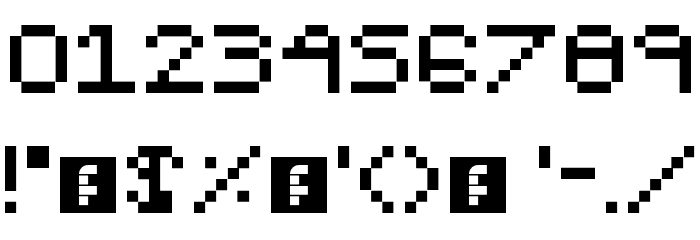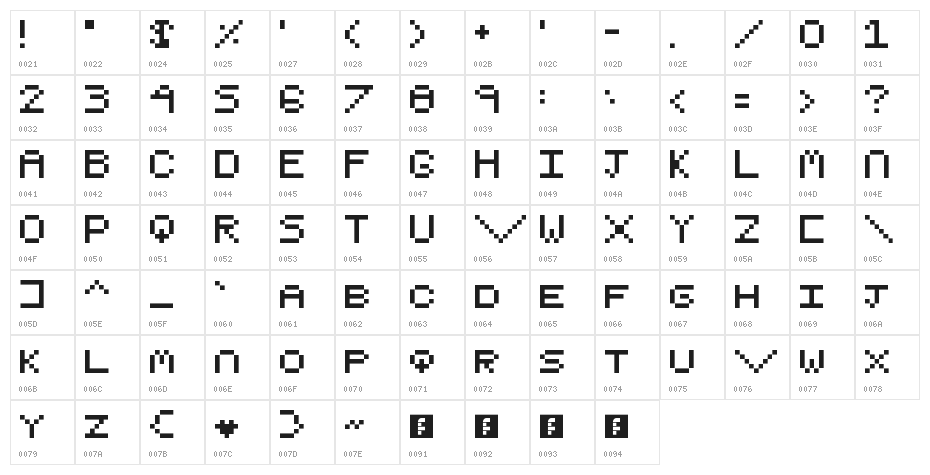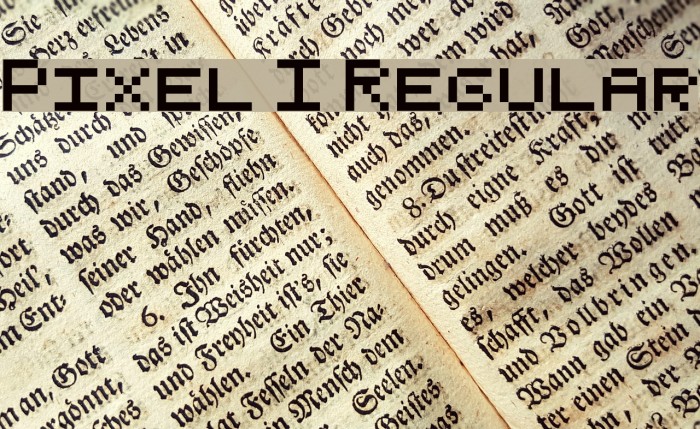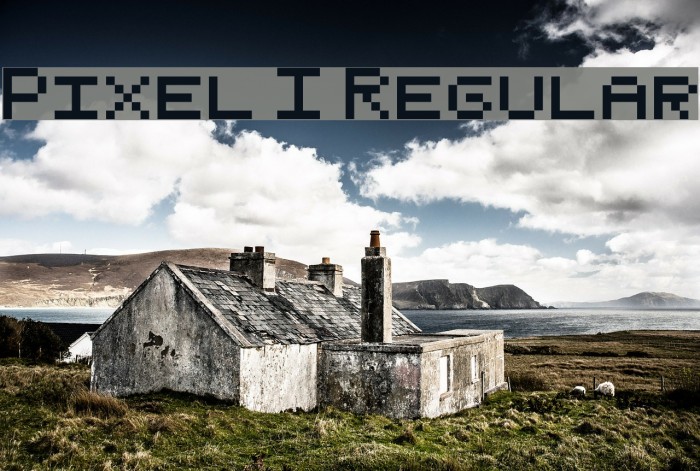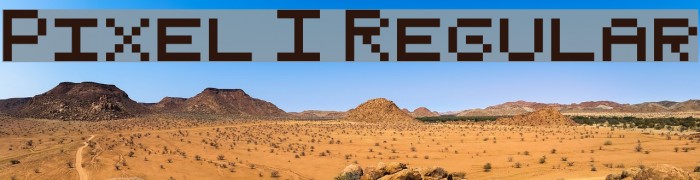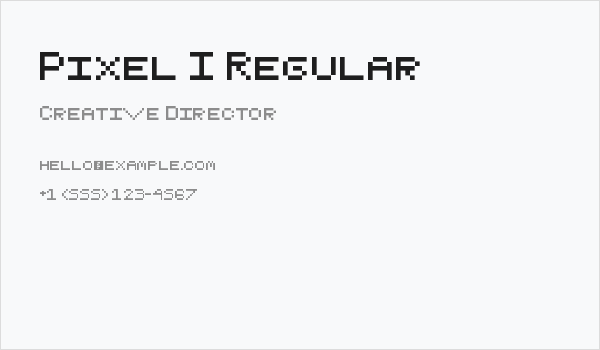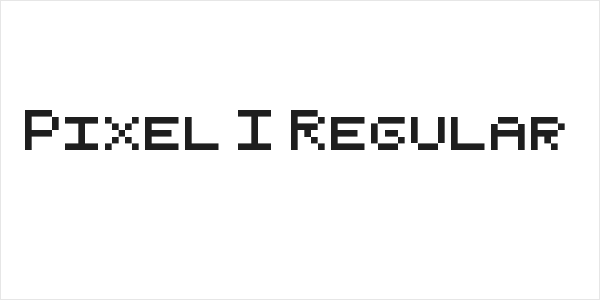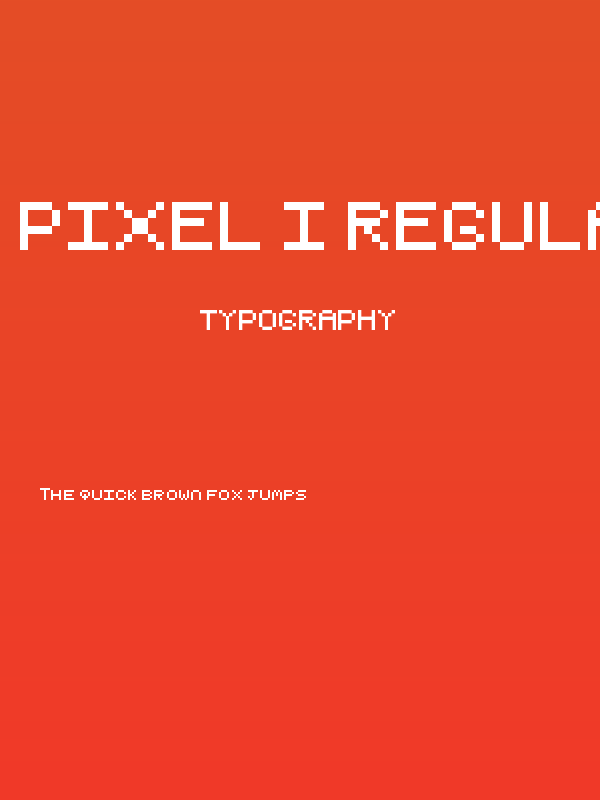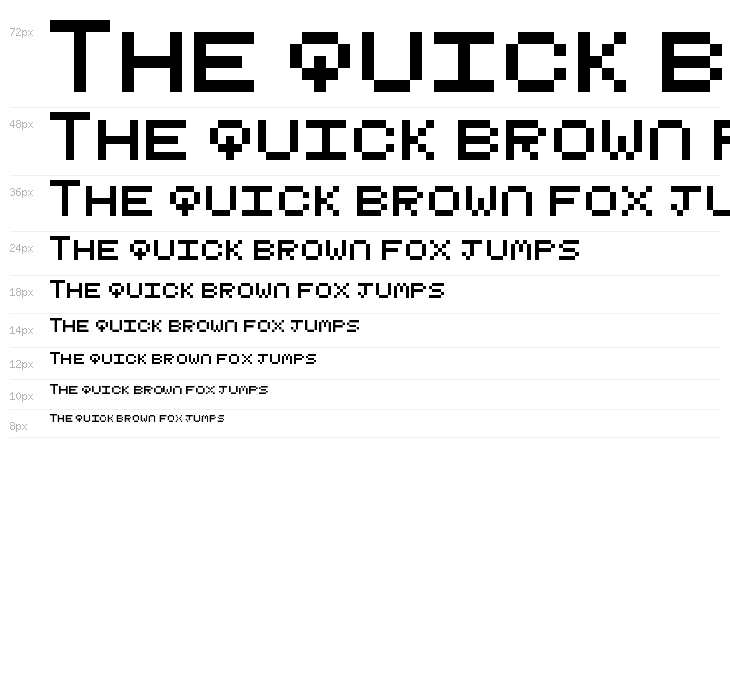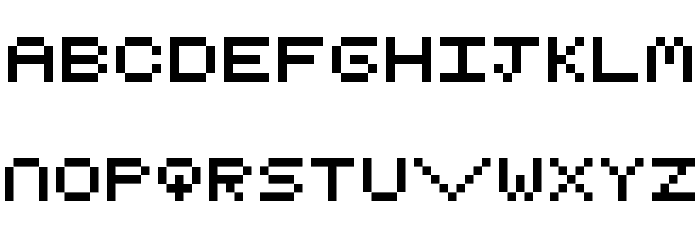
Pixel I Regular Font
Pixel I Regular Description
This font embodies a classic pixelated style reminiscent of early digital displays and video games. Each character is constructed with a grid-like precision, featuring sharp, blocky edges that create a distinctly retro aesthetic. The uniformity in height and width across characters ensures a cohesive and structured appearance, making it ideal for digital and retro-themed projects. The font's simplicity and clarity make it highly legible, even at smaller sizes, while its nostalgic charm adds a playful touch to any design.
| Use Case | Headlines, Logos, Digital displays |
| Proposed Projects | Ideal for video game design, digital art, retro-themed posters, and tech-related branding. |